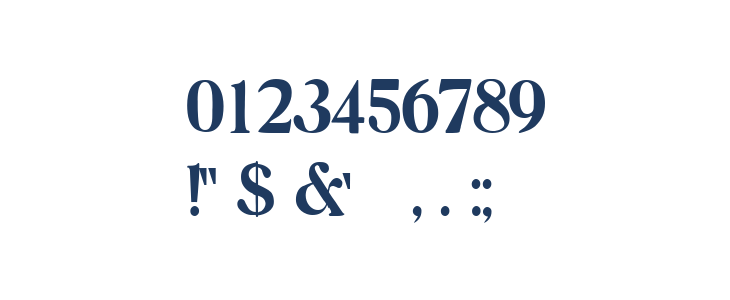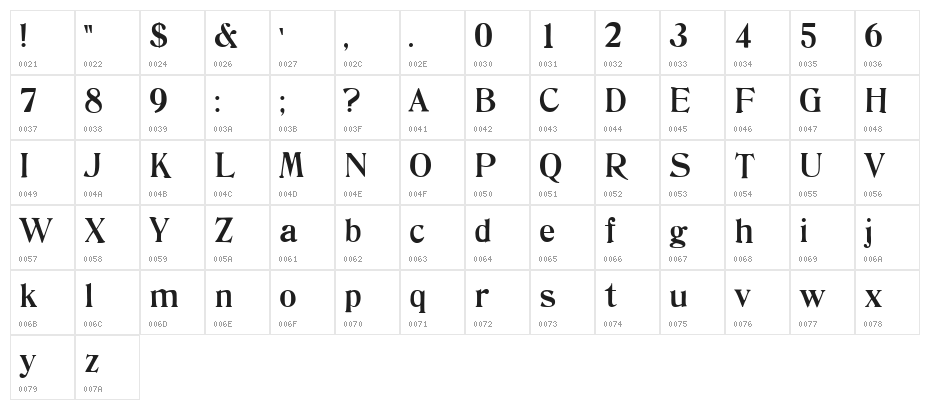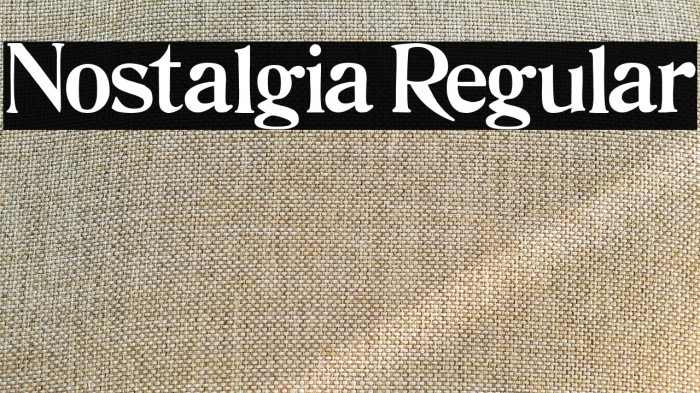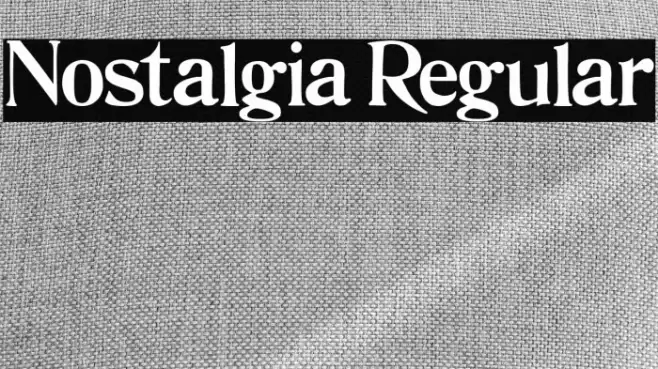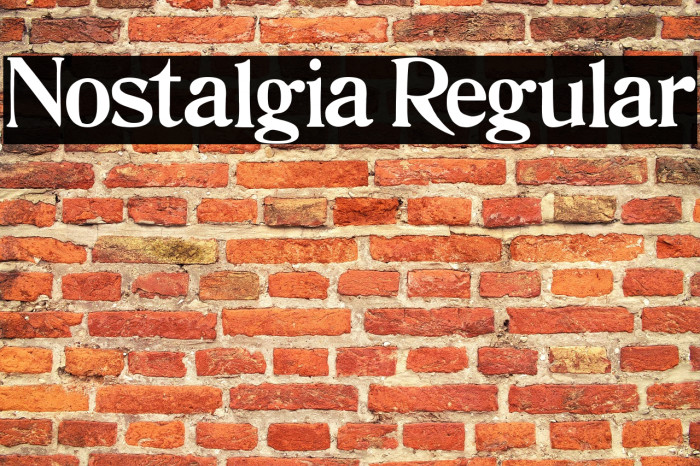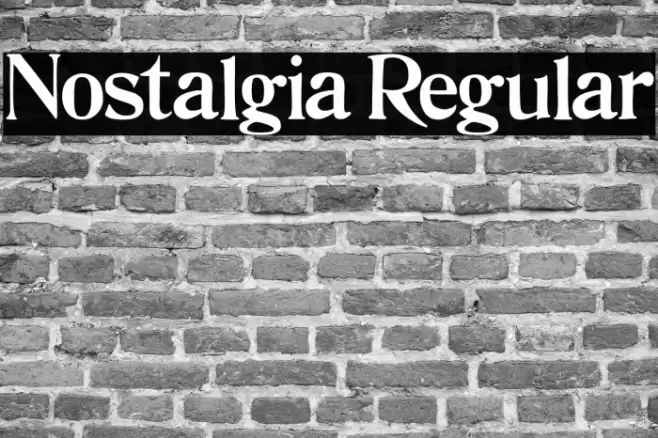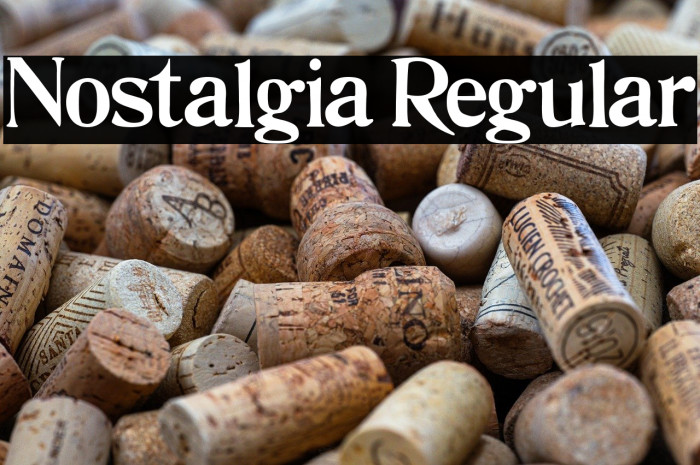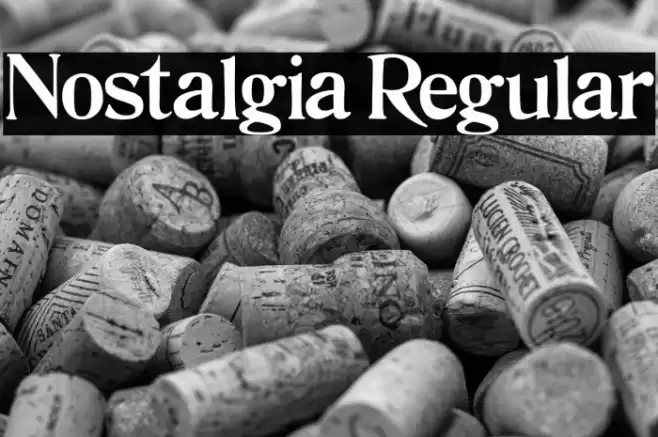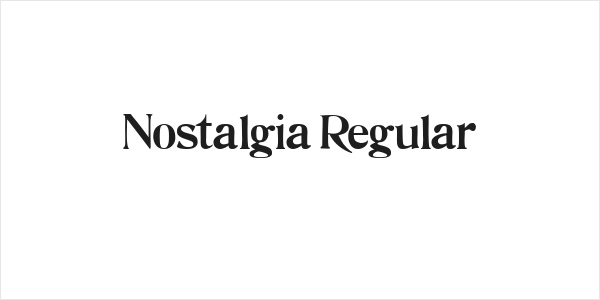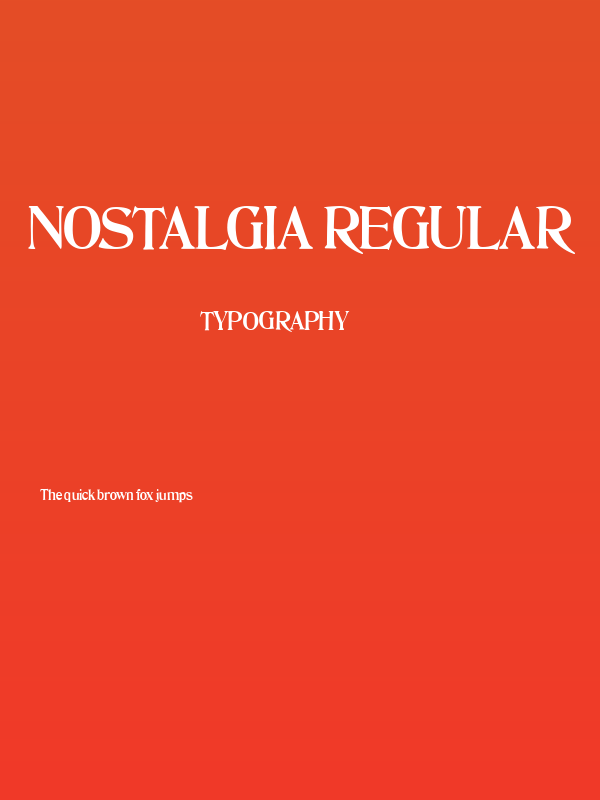
Nostalgia Regular Font
This font exudes a classic and elegant style, characterized by its distinct serif features and moderate stroke contrast. The uppercase letters are bold and commanding, while the lowercase letters maintain a graceful flow. The numerals are well-proportioned, complementing the overall aesthetic. Special characters are crafted with attention to detail, adding to the font's versatility. Its design is reminiscent of traditional serif fonts but with a modern twist, making it suitable for a variety of applications. The spacing between characters is balanced, ensuring readability and visual appeal.
Overall StyleClassic
Use CaseHeadlines, Body text, Logos
Proposed ProjectsIdeal for editorial design, book covers, branding, and formal invitations.